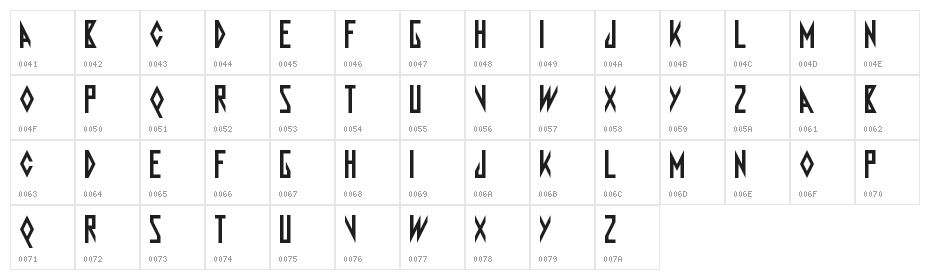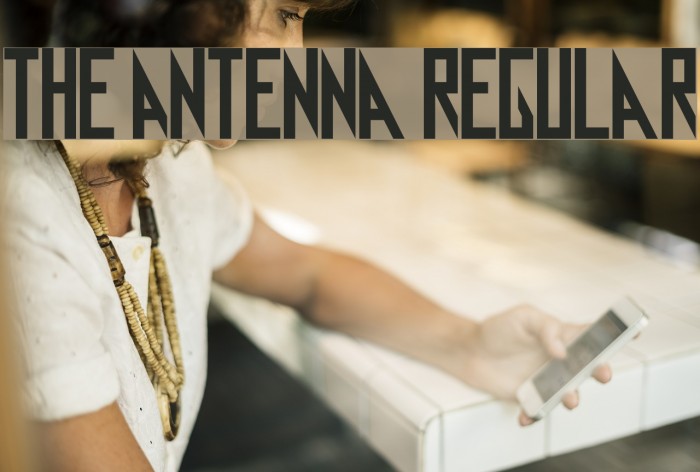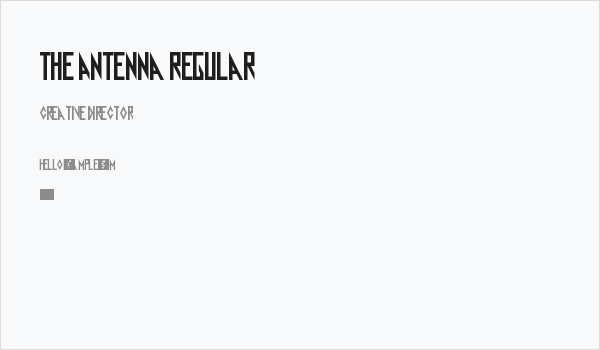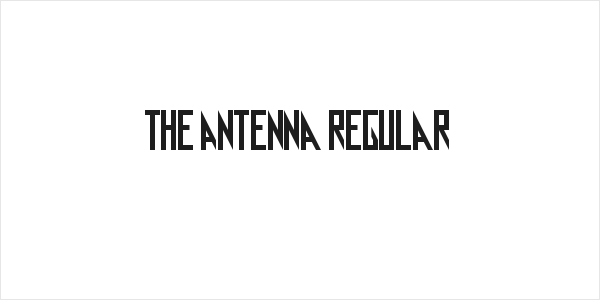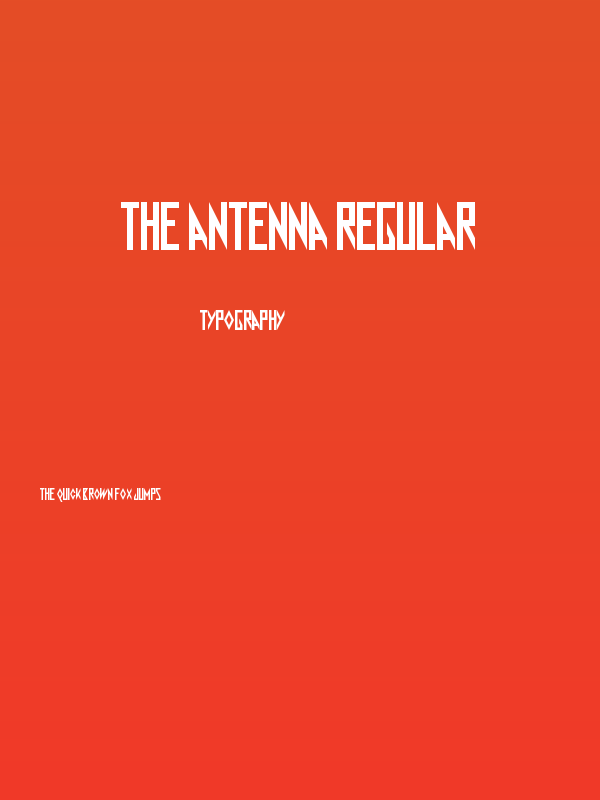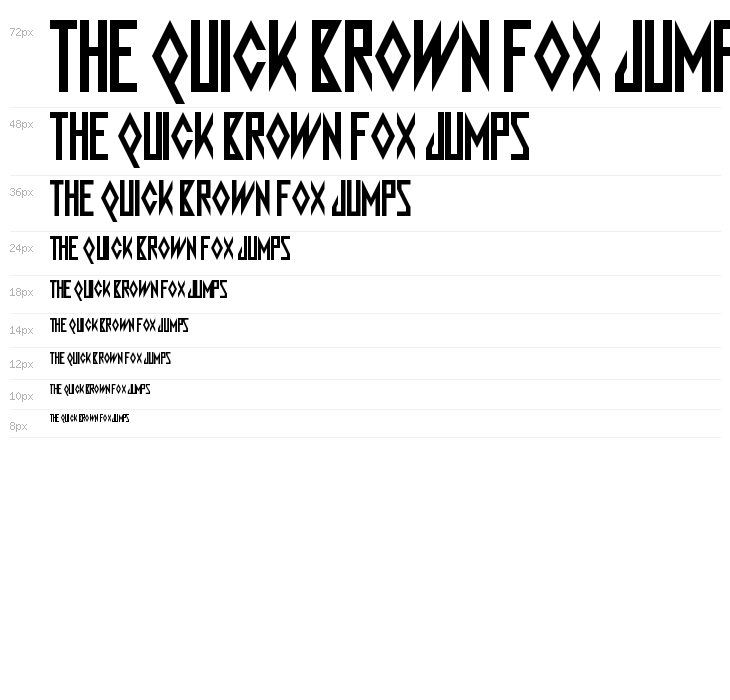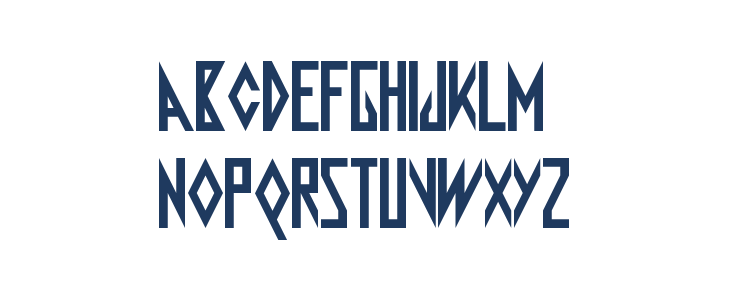
The Antenna Regular Font
The Antenna Regular Description
This font features a bold, geometric design with sharp angles and a futuristic aesthetic. The uppercase letters are characterized by their uniform height and distinct angular cuts, giving them a striking and modern appearance. The characters are tightly spaced, enhancing the compact and cohesive look of the text. The absence of curves and the presence of straight lines and sharp edges contribute to its unique style. This font is highly legible and makes a strong visual impact, making it suitable for attention-grabbing headlines and display purposes.